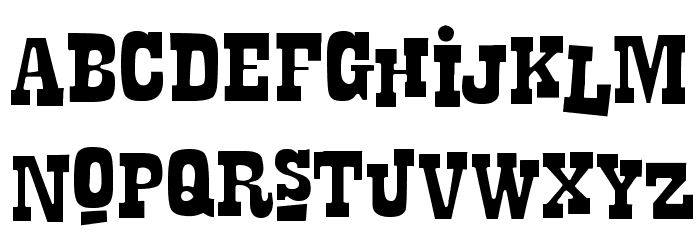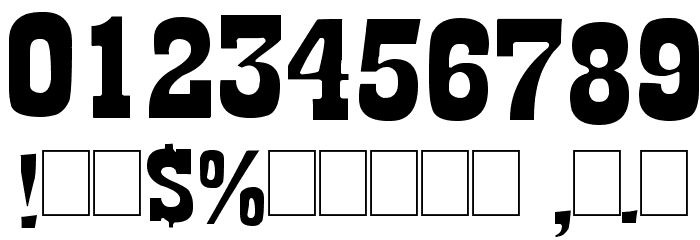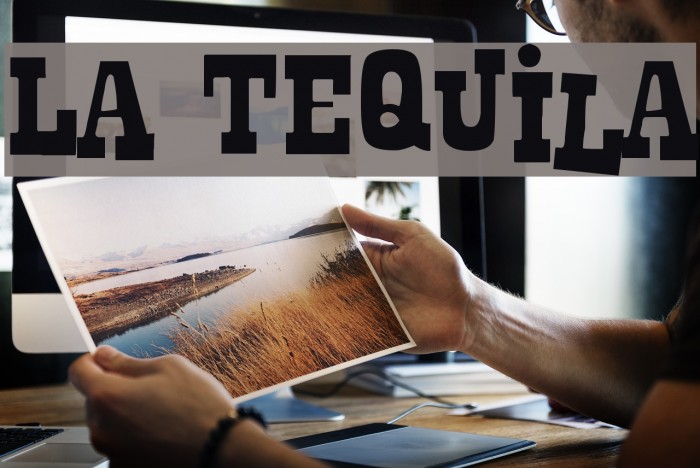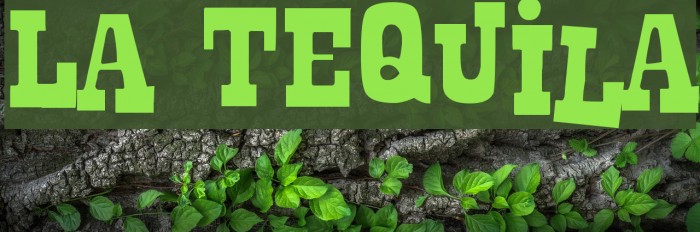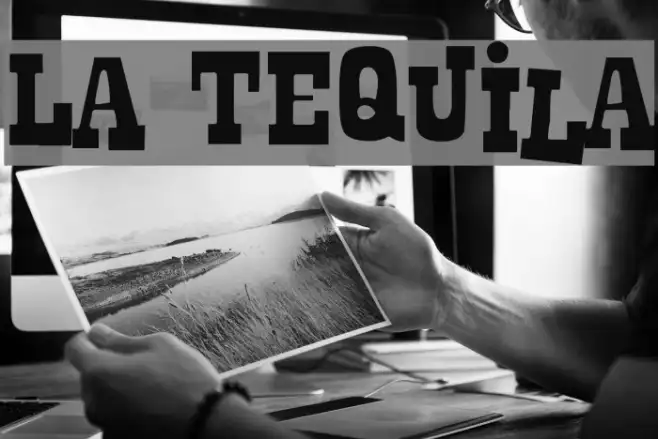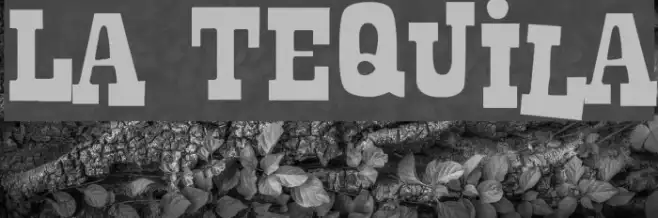
La Tequila Font
This bold and striking font features a slab serif style with a strong, impactful presence. The characters are designed with thick strokes and pronounced serifs, giving them a robust and sturdy appearance. The uppercase letters are uniform in height, while the lowercase letters maintain a consistent style, contributing to a cohesive look. The numbers are equally bold, ensuring they stand out in any context. Special characters are included, maintaining the same boldness and style, making this font versatile for various uses. The overall design is reminiscent of vintage Western typography, adding a touch of nostalgia and character.
A bold slab serif font with a vintage Western style.
- Proposed Projects: Ideal for posters, branding, headlines, and any project requiring a strong, vintage aesthetic.
- Overall Style: Vintage